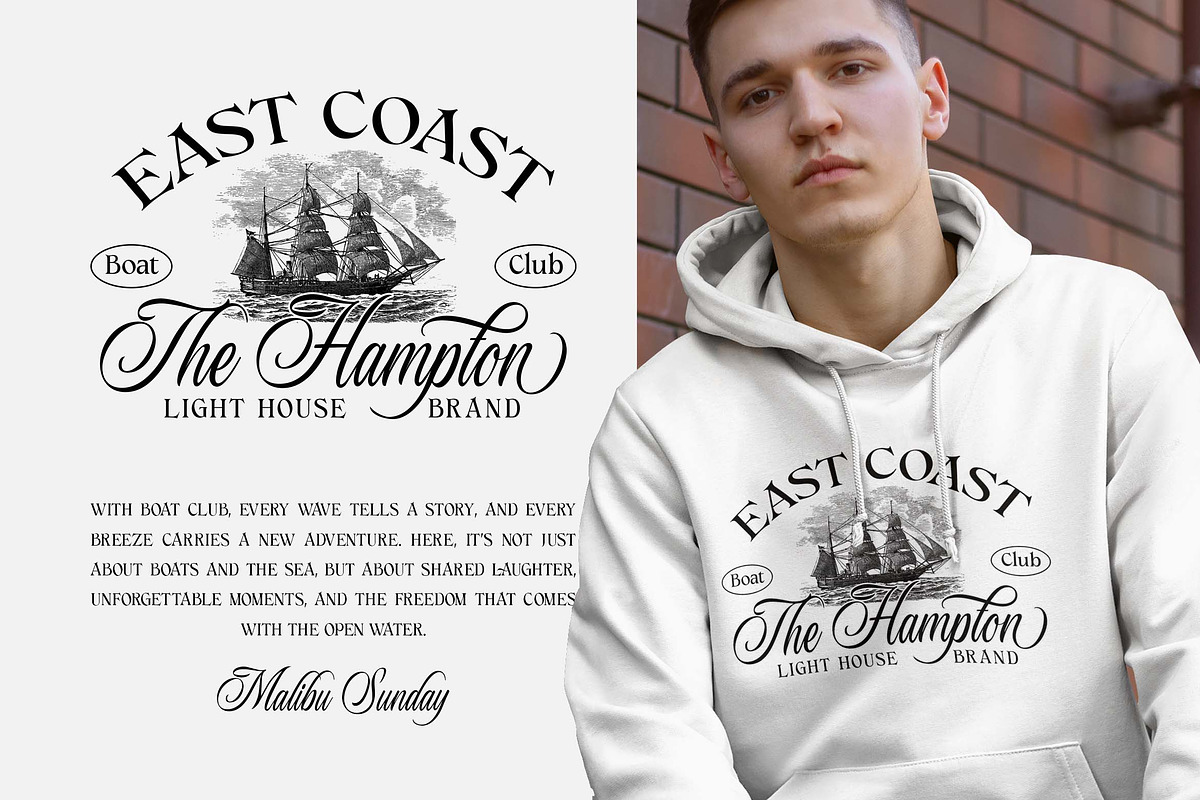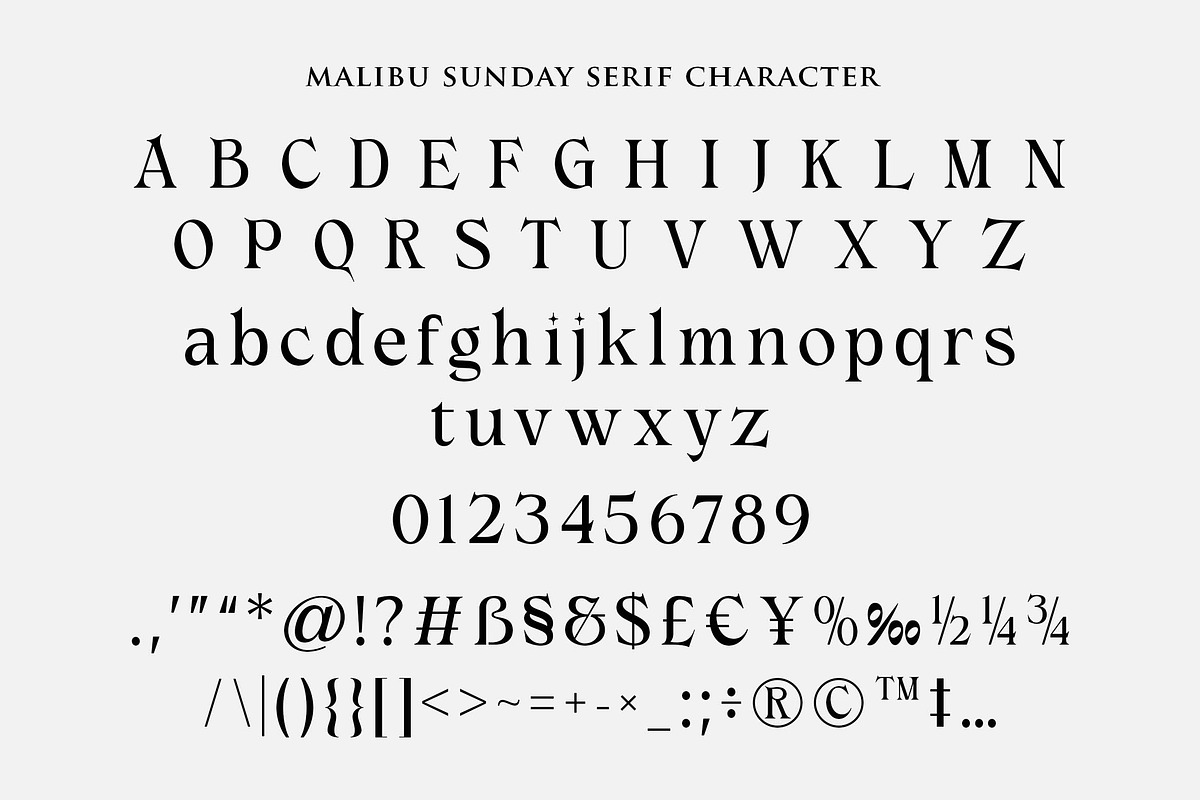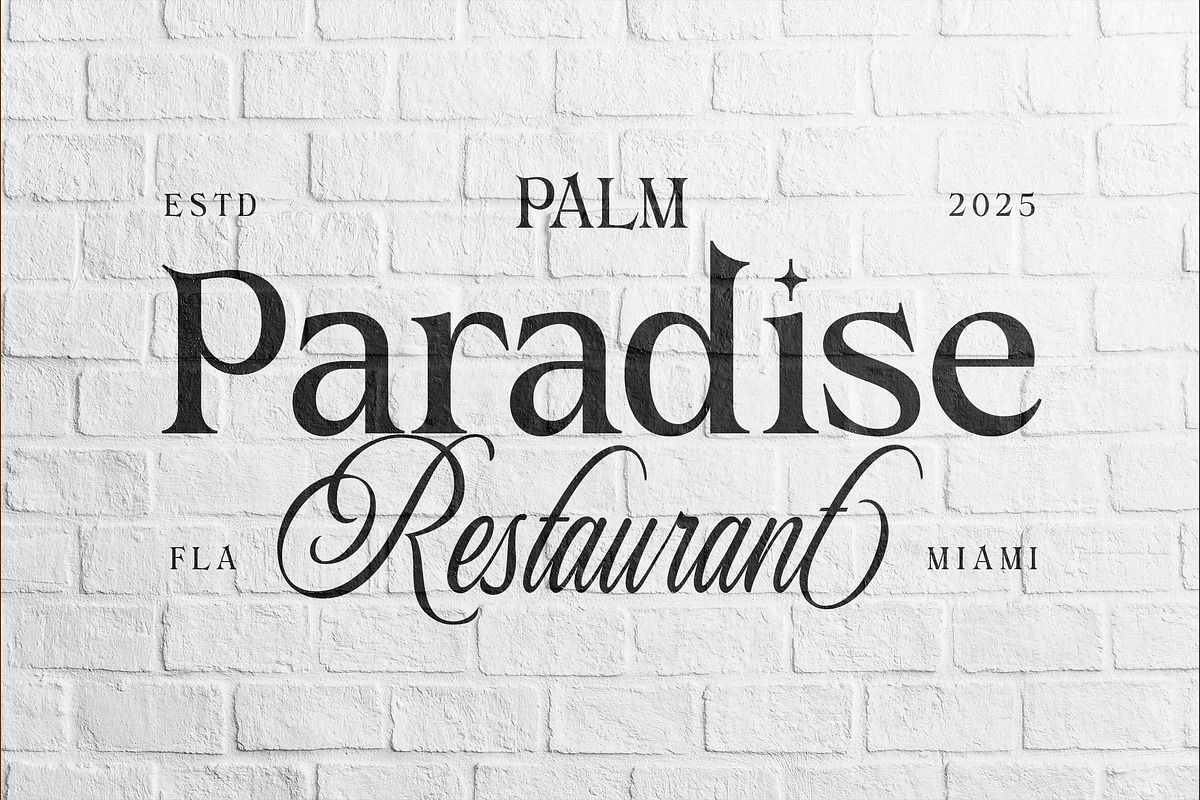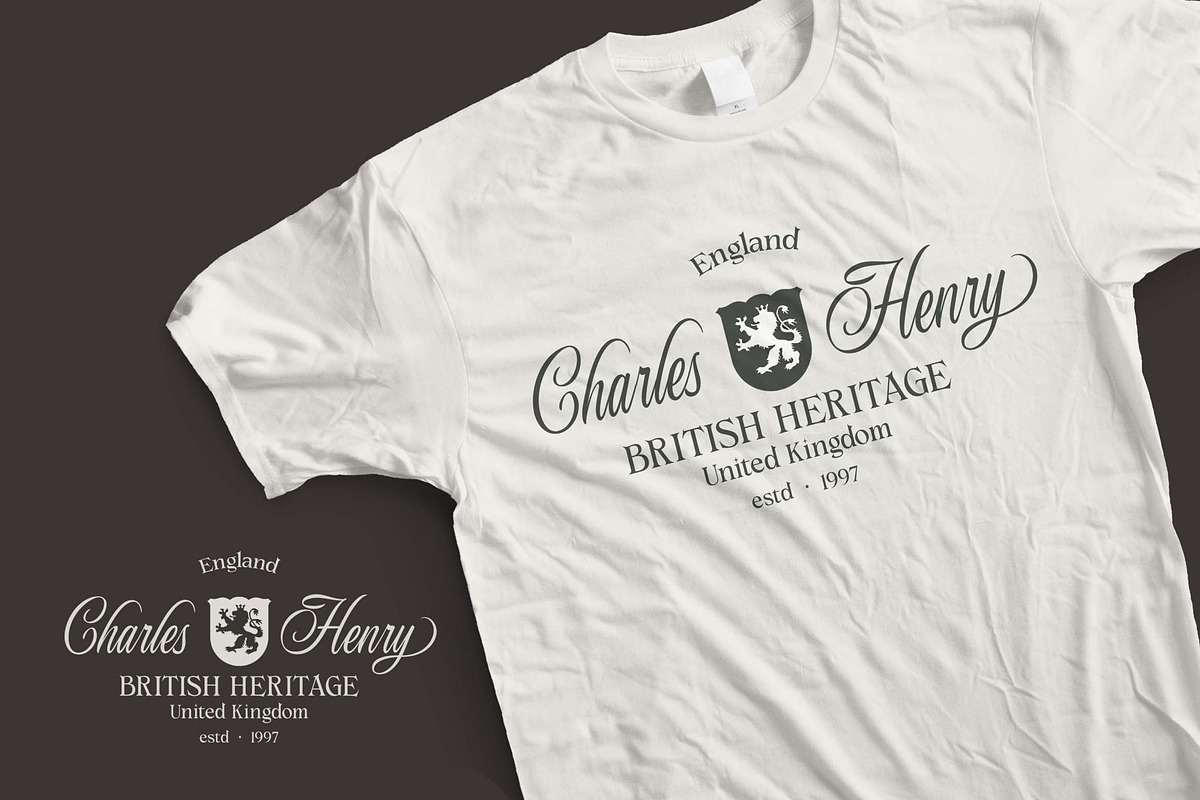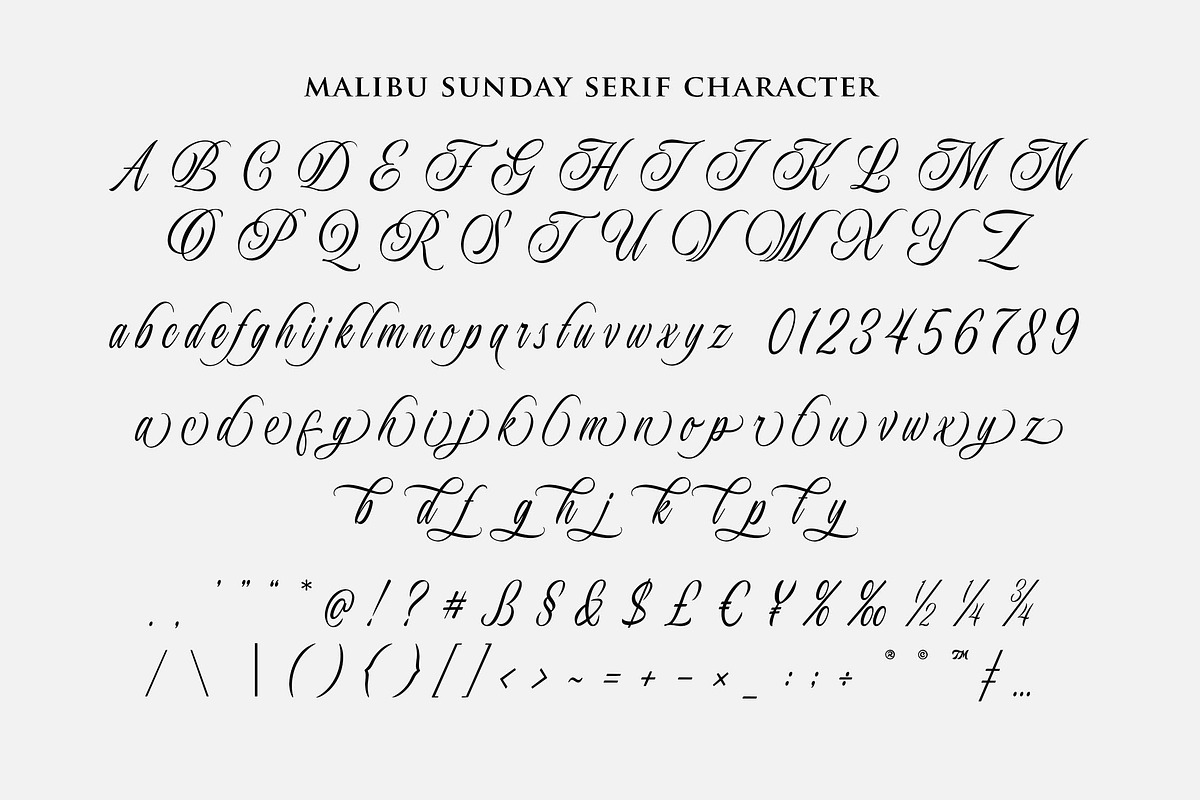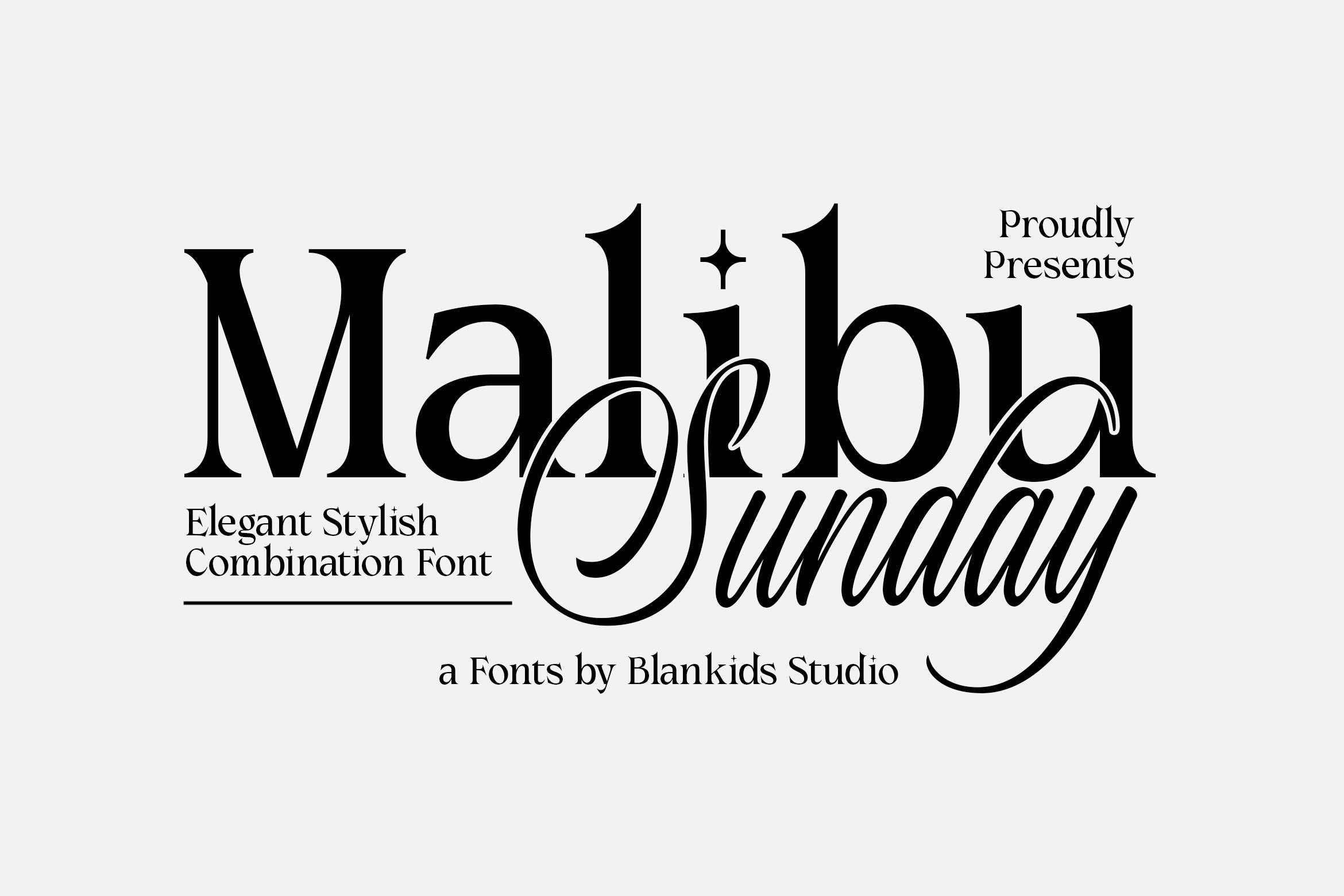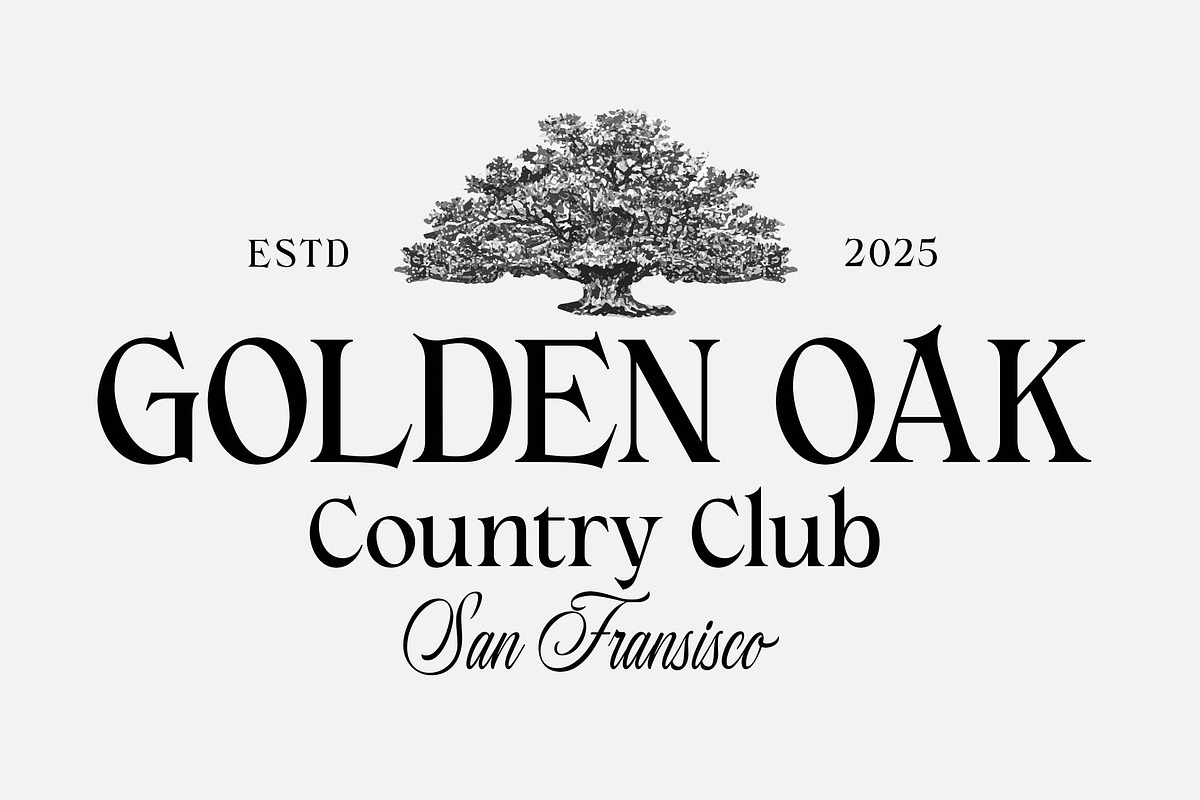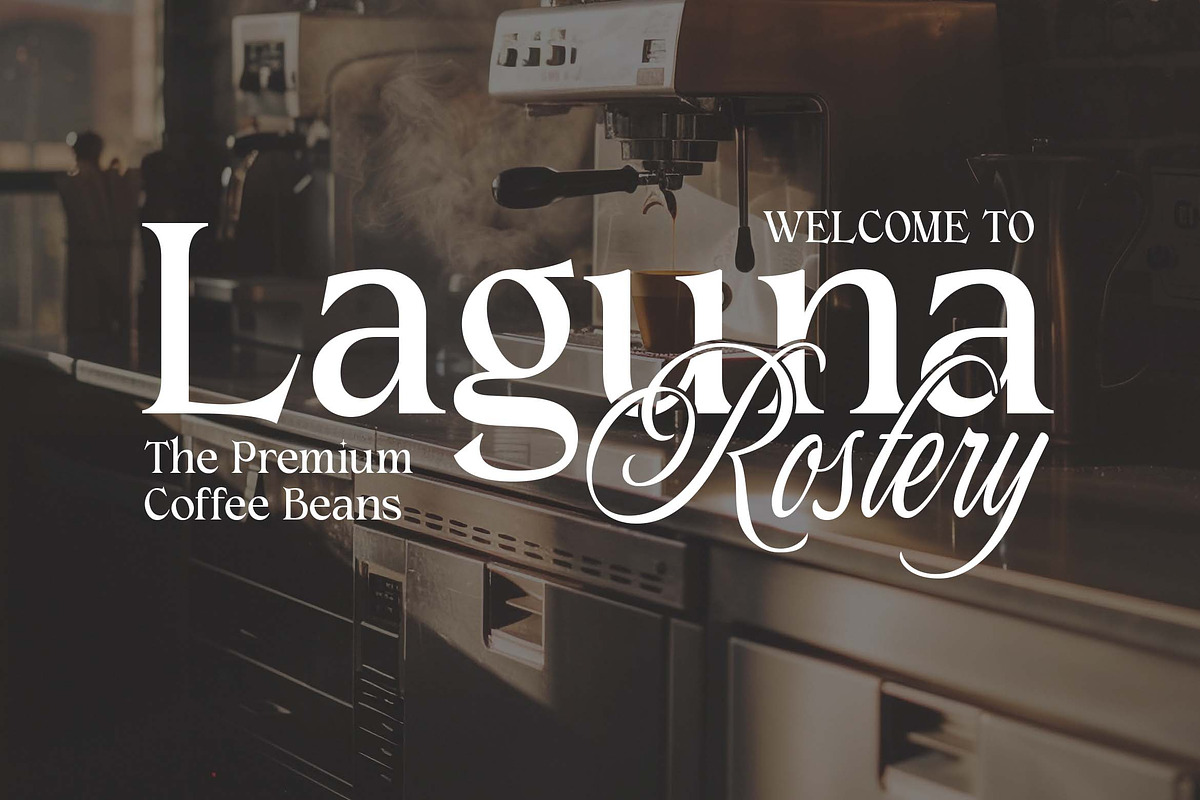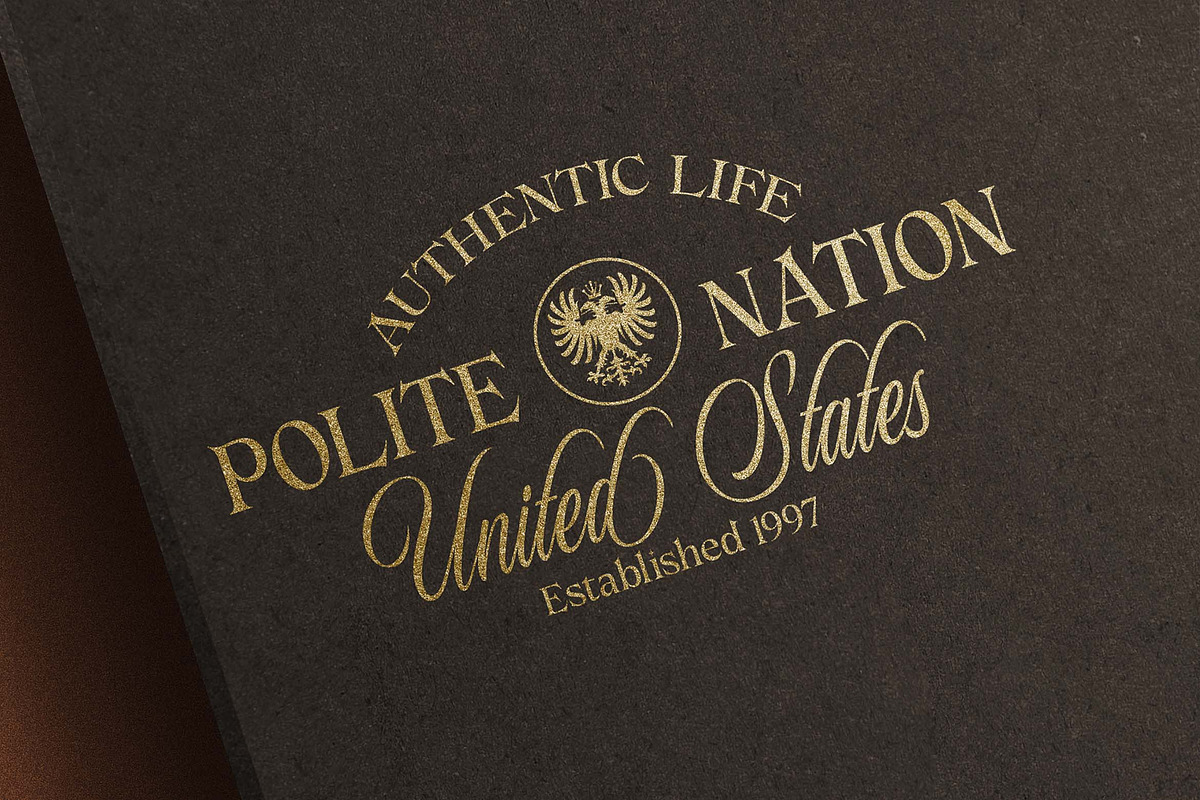
Malibu Sunday - Elegant Stylish font
Hello, awesome people! This time, we have a new font called Malibu Sunday an Elegant Stylish font combination by Blankids Studio.
Malibu Sunday an Elegant Stylish font combination is made for any professional project branding, such as logotype, watermarks, poster, branding, promotions, product packaging, etc. Every letter has a classical elegance style design. This font comes in serif and script style font.
Malibu Sunday font includes a full set of classical elegance uppercase and lowercase letters, numerals and punctuation. This font has a classical elegance style. See the previews above to get some inspiration on how to use them. Happy designing!